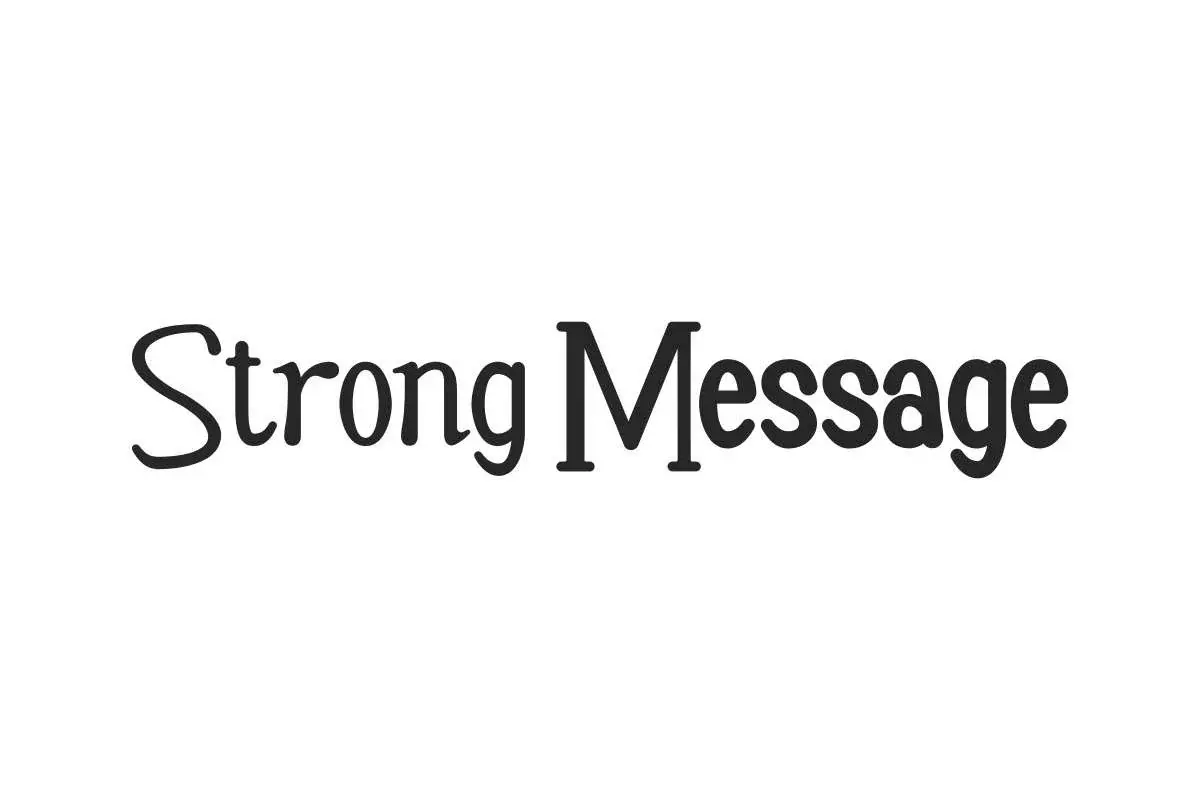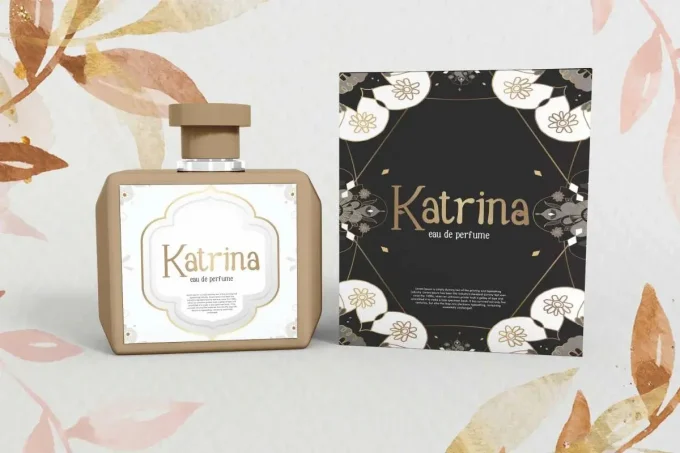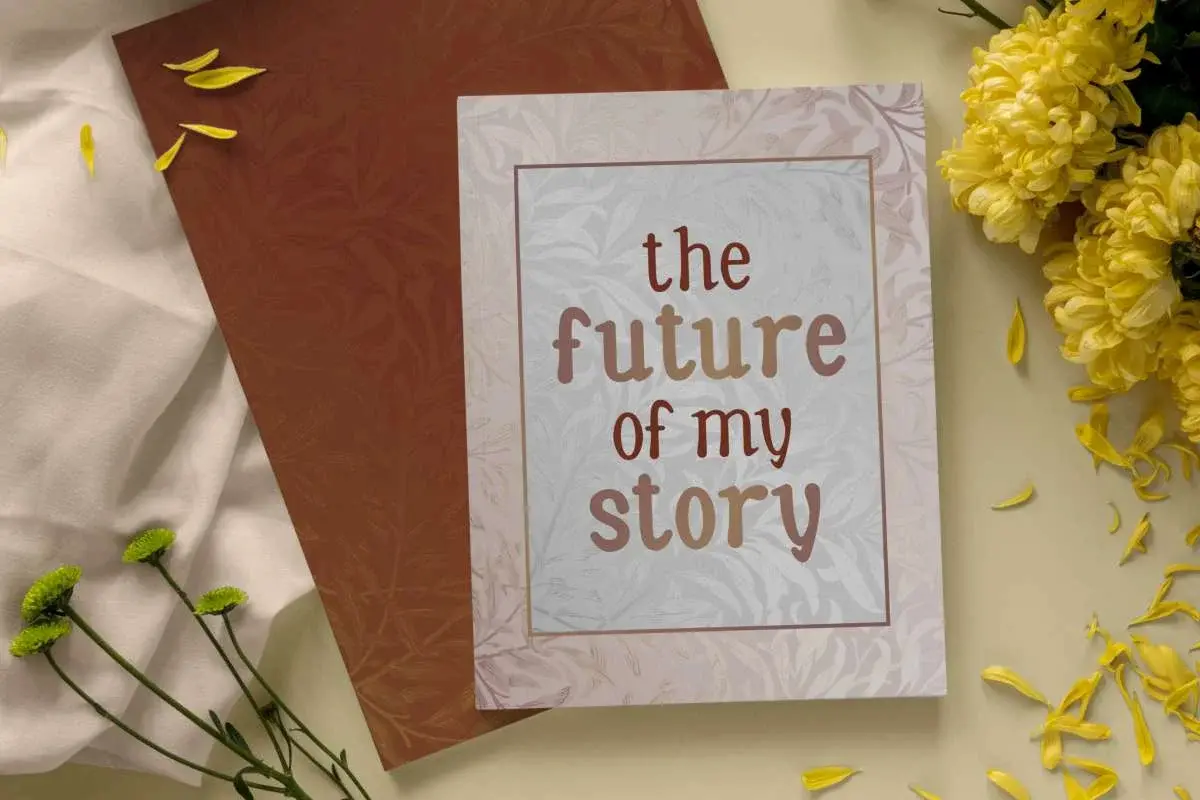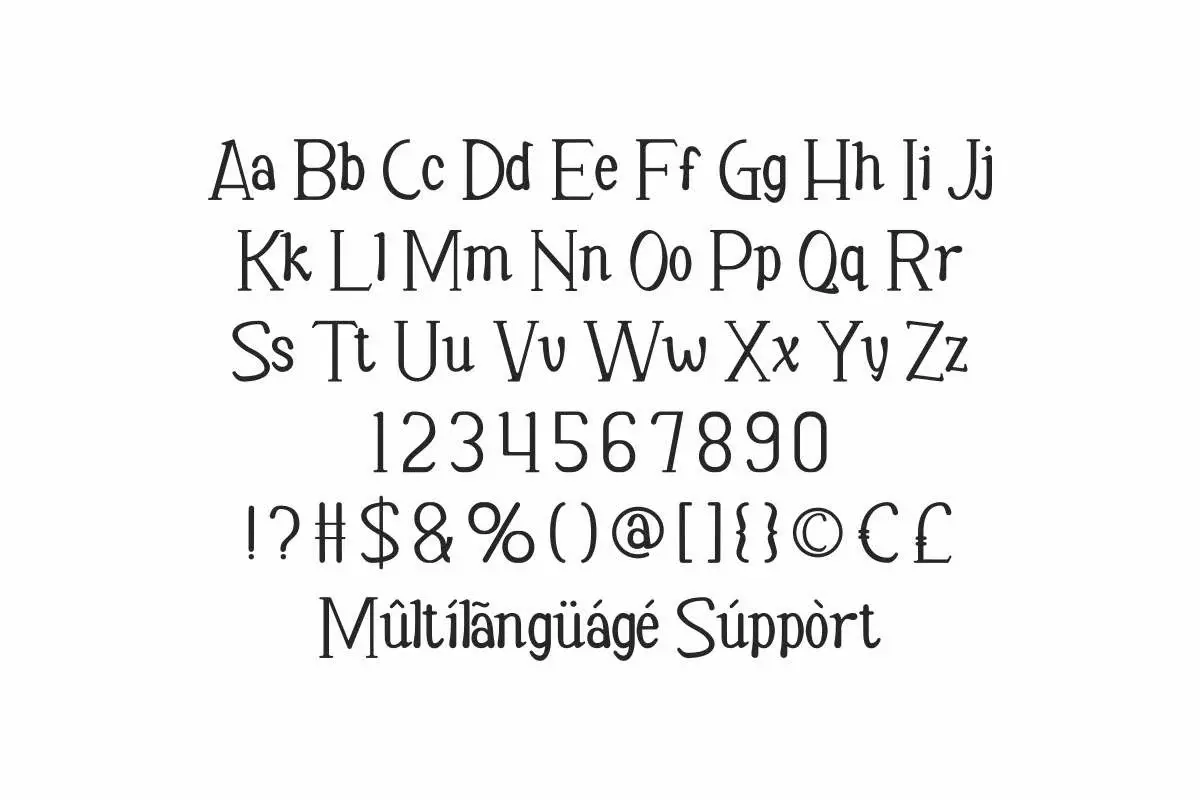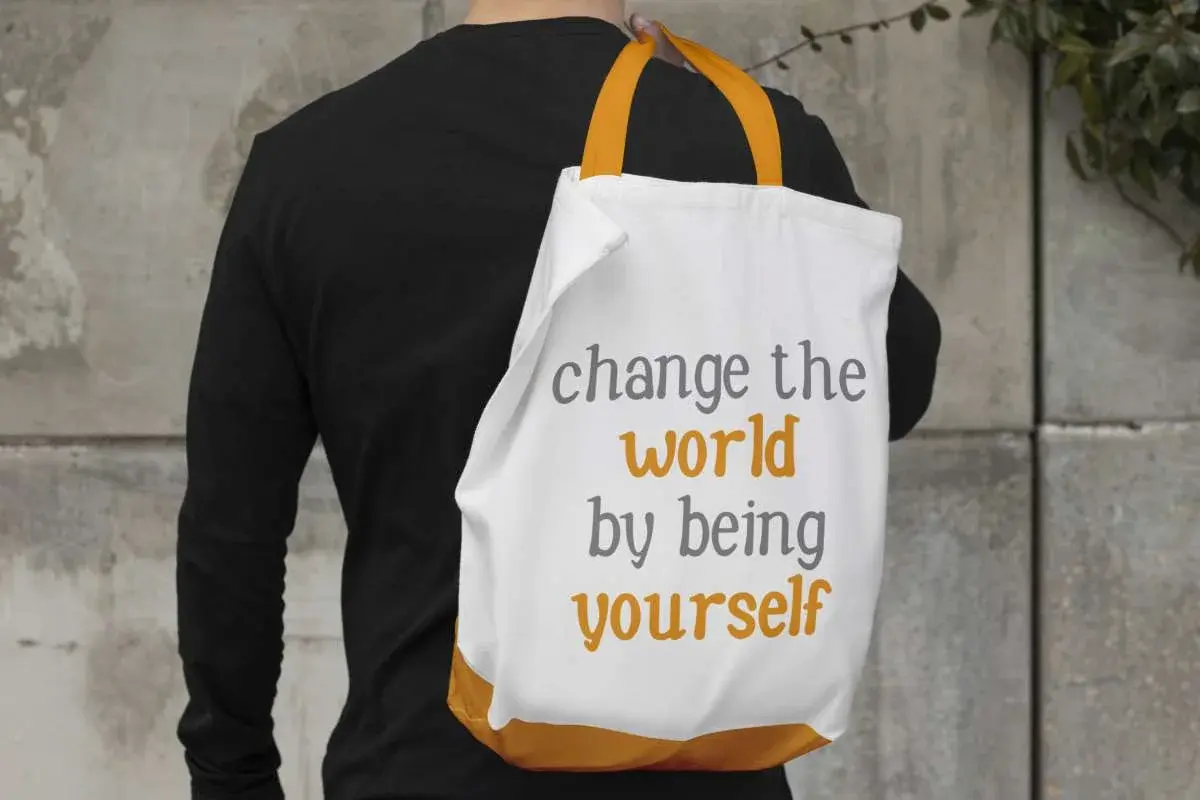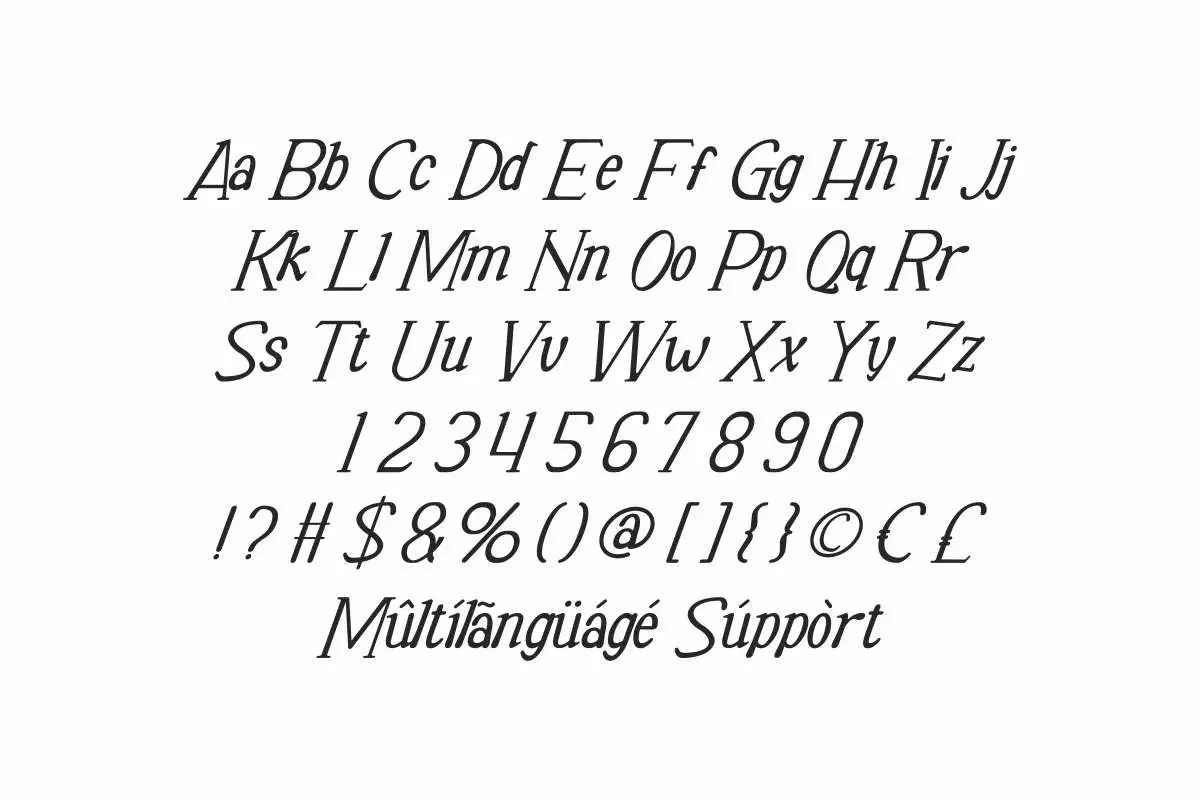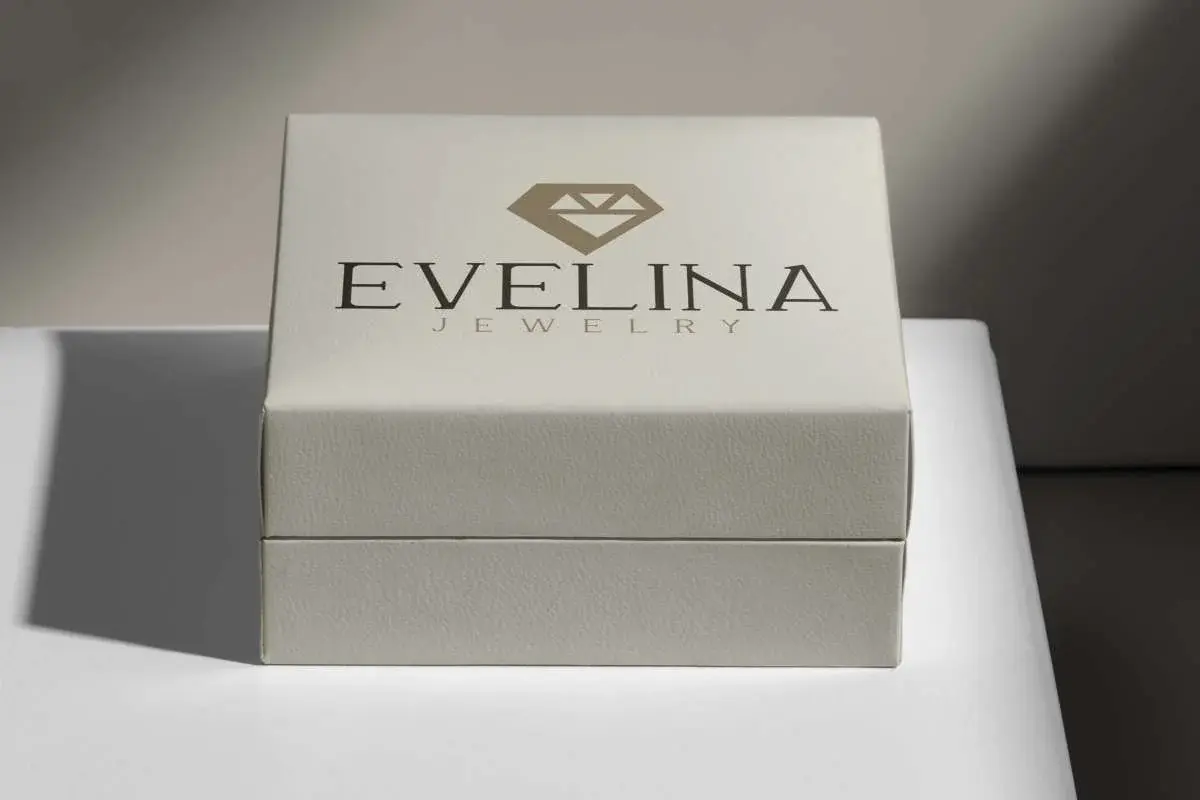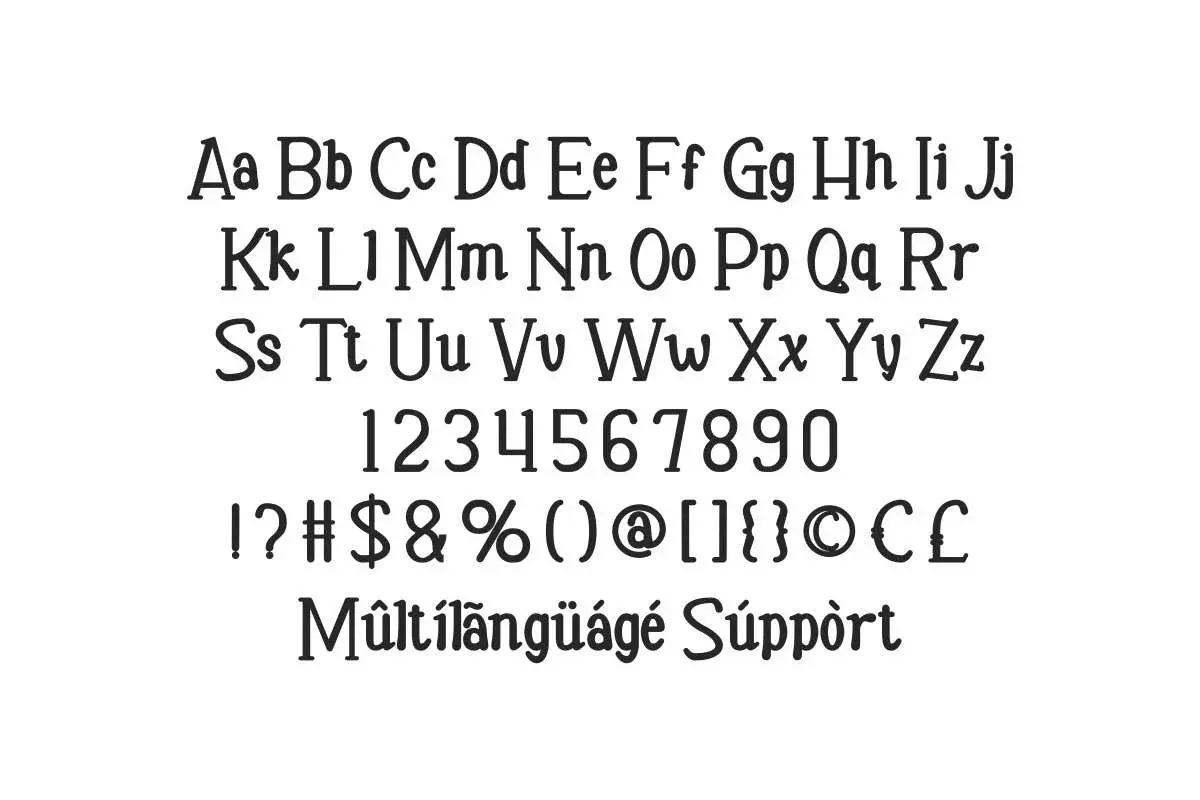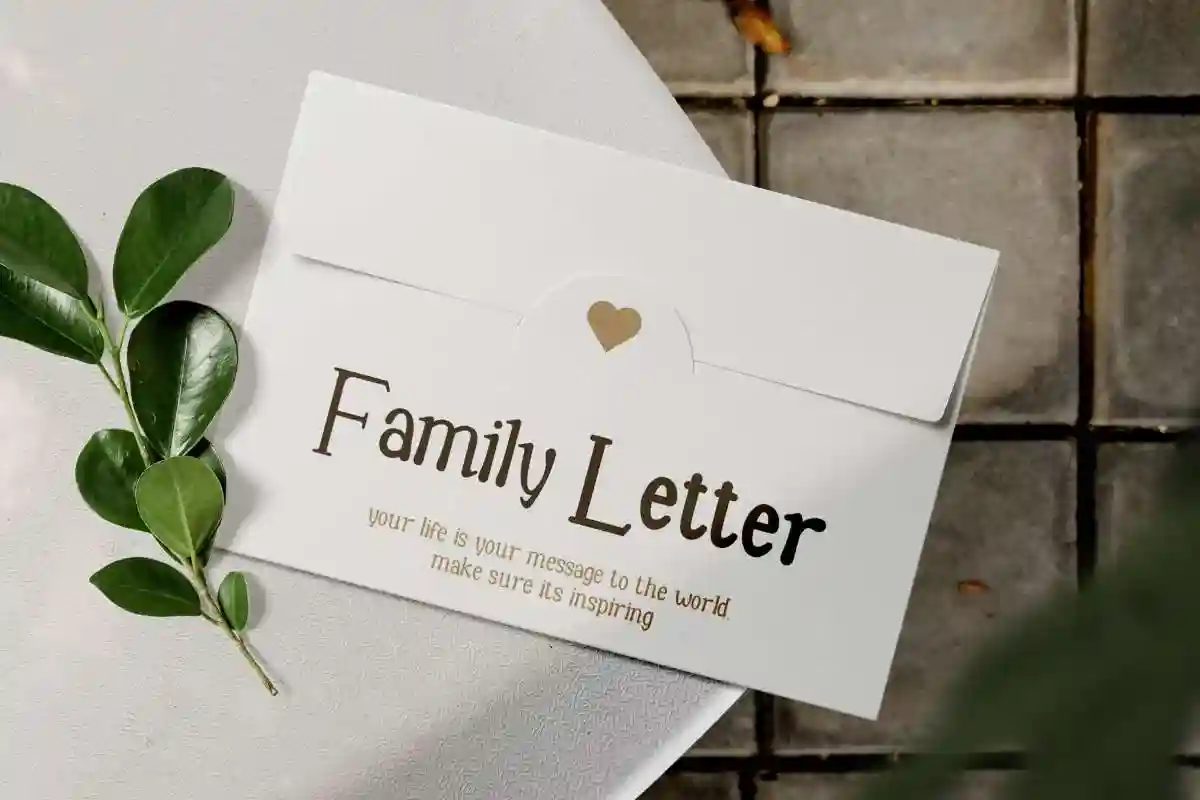
Strong Message Font
Strong Message Font is a fun playful sans serif display with casual styles. The font comes with three style options : Regular, Italic, and Bold. Get it now!
Strong Message Font is a fun sans serif display font family with three style options : Regular, Italic, and Bold. Get it now!. The font has a unique shapes that makes it unique and stand out. It will be suitable for many industries, such as comic, schools, café, craft, fashion, interior design, jewelry, perfume, publishing, writer, and anything that requires a strong classy vibe.
Strong Message Font has 3 awesome of styles, namely : Regular, Italic, and Bold which will be good for your any projects, such as envelope, invitations, jewelry box, labels, quotes, tote bag designs, etc.